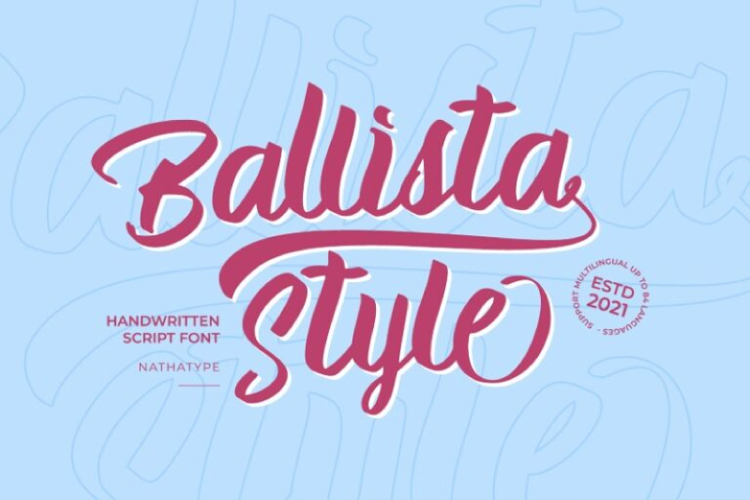
Ballista Style Font
Product Description:
NATHA TYPE
Ballista Style is a delightful handwritten font that adds a playful touch to your designs. Each letter in Ballista Style is meticulously designed to capture the whimsical essence of handwritten text, with playful curves and dynamic strokes.
Features:
• Ligatures
• Stylistic Sets
• Swashes
• Multilingual Supports
• Numerals and Punctuations =======================================================